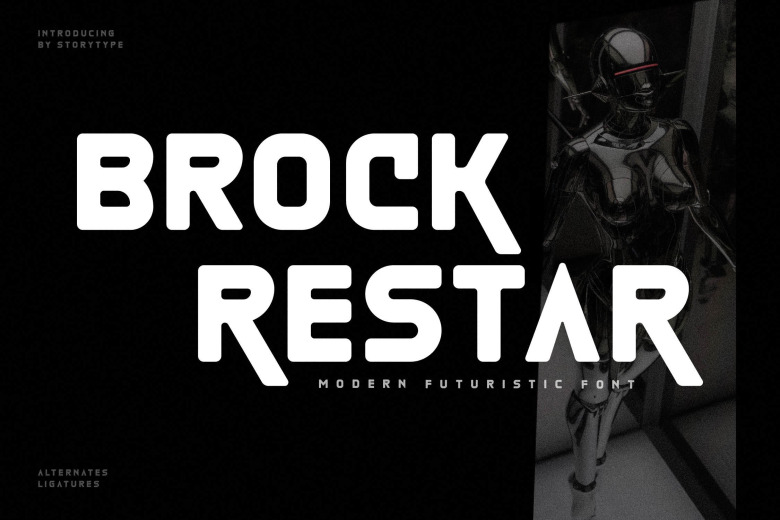
Brock Restar Font
Brock Restar is a modern classic look typeface. This typeface has its own unique style which is very trendy at present. Perfect for elegant and luxurious logo, book or movie title, fashion brand, magazine, clothes, lettering, quotes, and so much more.
Brock Restar Display Font